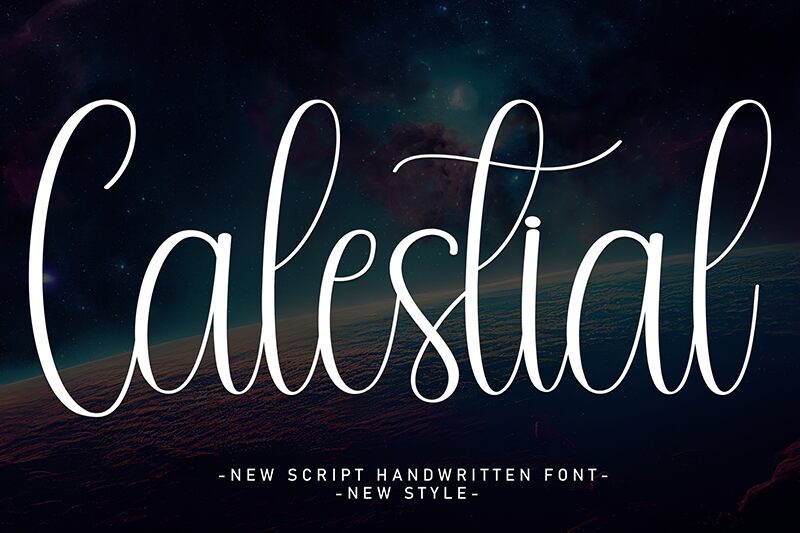
Calestial
Calestial font by Andi Moz is a light calligraphy typeface with a condensed width. Its design presents an elegant and flowing script style that showcases decorative flourishes for a graceful and refined appearance, as well as to create a sophisticated mood.
This free calligraphy font is ideal for product labels, signage graphics, packaging designs, advertising posters and flyers, logos and branding projects, apparel and fashion accessories print design projects. Use it in your invitation card templates for wedding ceremonies or other formal events.